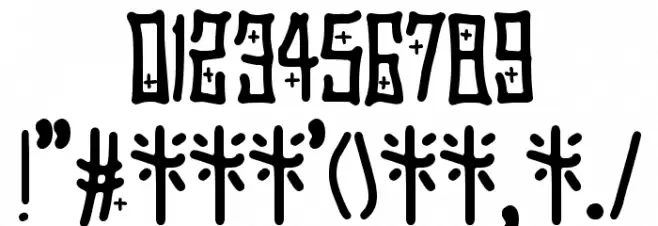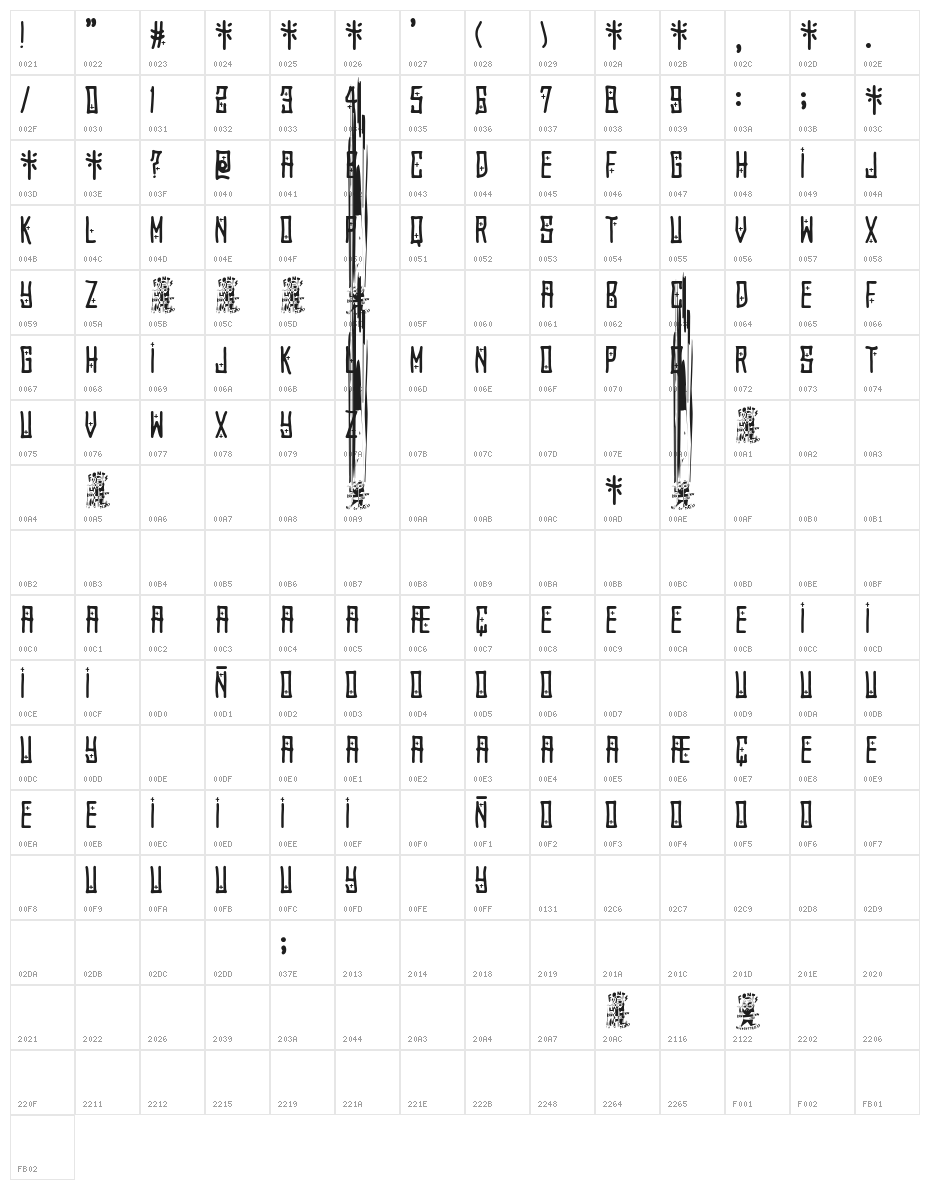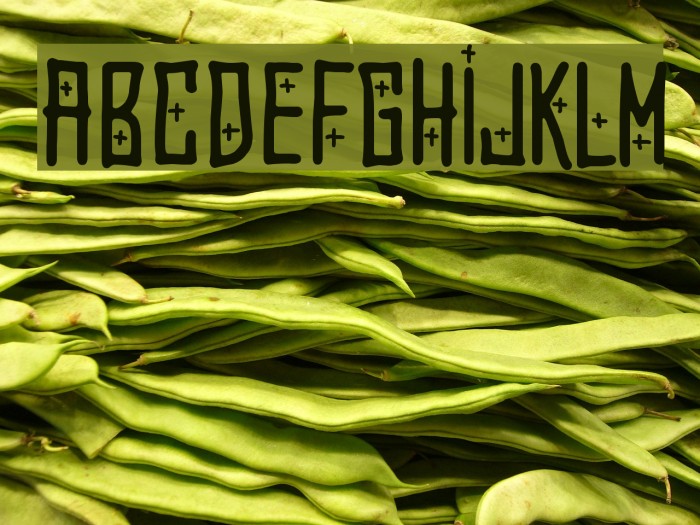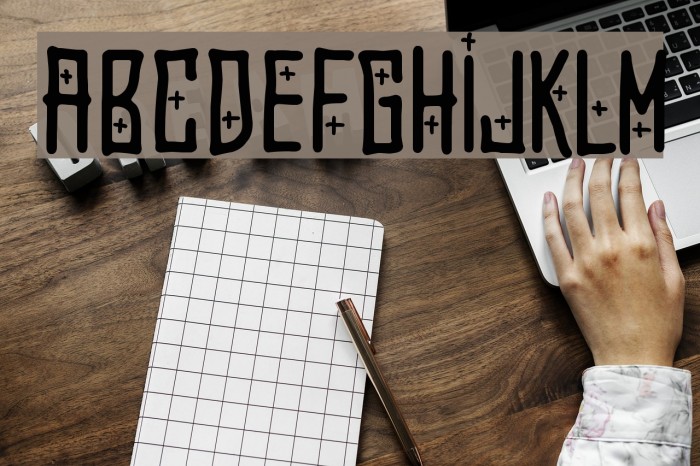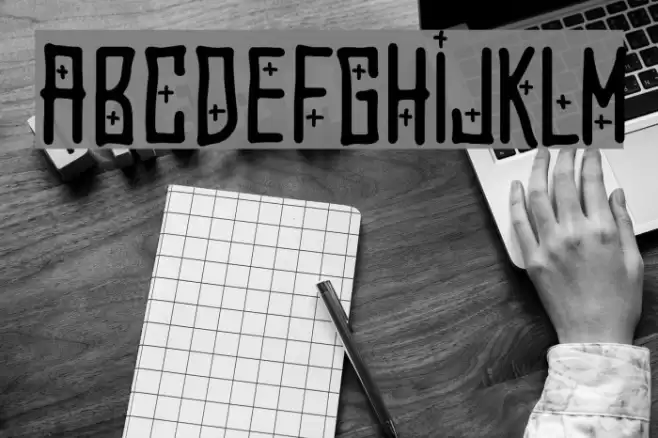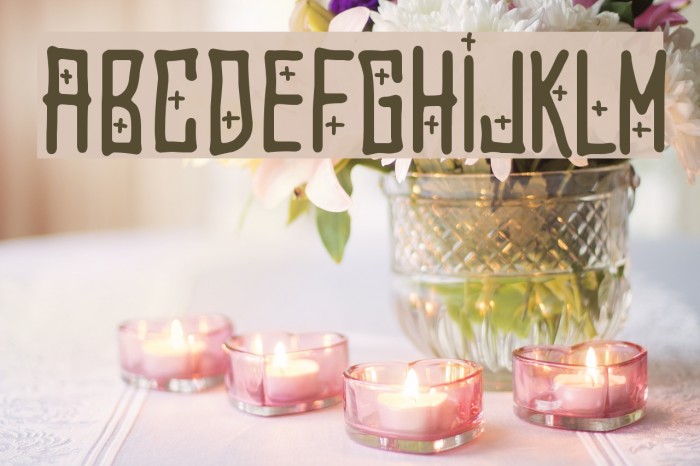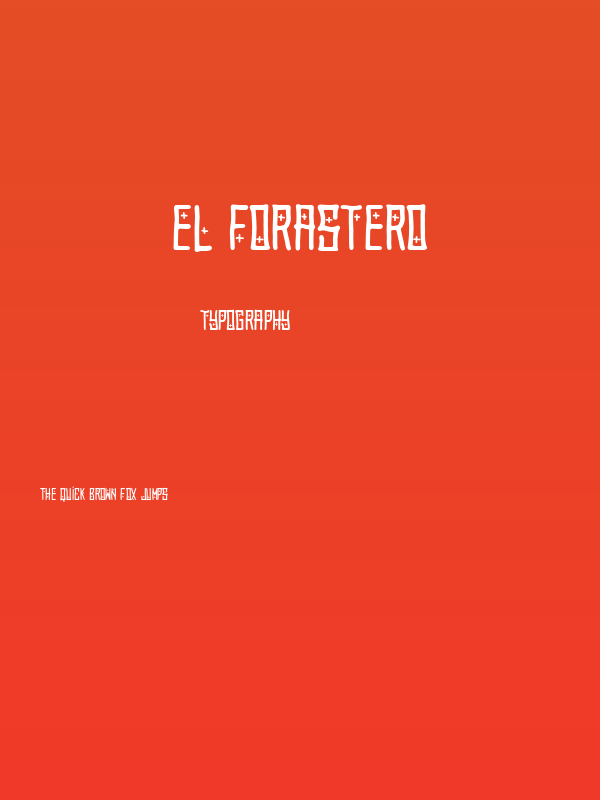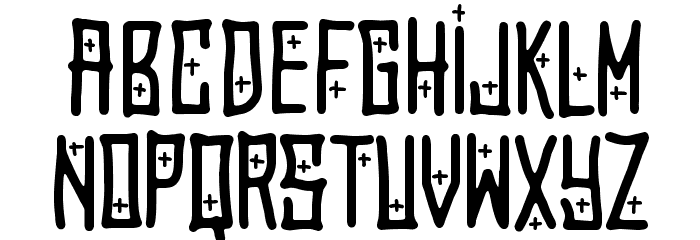
El Forastero Font
El Forastero Description
This font features a bold and decorative style with unique cross-like embellishments within each character, giving it a distinct and edgy appearance. The uppercase letters are tall and slightly condensed, while the lowercase letters maintain a consistent height, creating a cohesive look. The numbers and special characters follow the same design principles, ensuring uniformity across all elements. The font's playful yet structured design makes it suitable for creative projects that require a touch of uniqueness and flair.
| Proposed Projects | Ideal for posters, album covers, branding projects, and any design needing a bold, unique statement. |